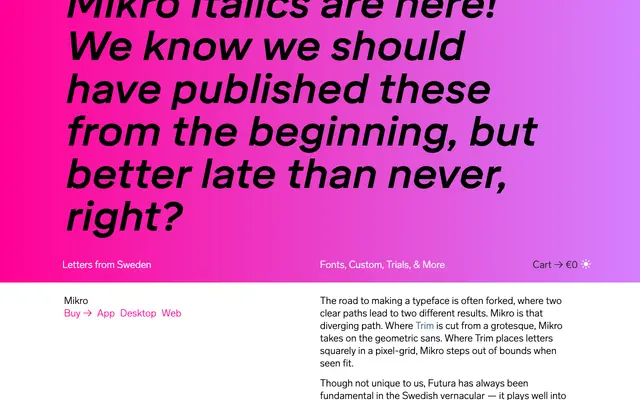
Mikro
A geometric sans by Ramiro Oblitas and Göran Söderström, commissioned by Design Sweden and rooted in Futura's long presence in Swedish graphic culture.
Designed as a counterpart to Letters from Sweden's grotesque Trim, Mikro draws on the geometric tradition associated with Futura, which the foundry describe as fundamental to Swedish visual identity. Originally commissioned by Design Sweden to represent both established and contemporary styles, it covers Latin and Cyrillic scripts across three weights with matching italics. A companion display subfamily, Mikro Super, was subsequently released for tight headline use.
Mikro is explicitly described as a geometric sans, positioned as a companion to the grotesque Trim and drawing on Futura's influence in Swedish vernacular. The design steps outside a strict pixel grid, giving it a more free geometric character.